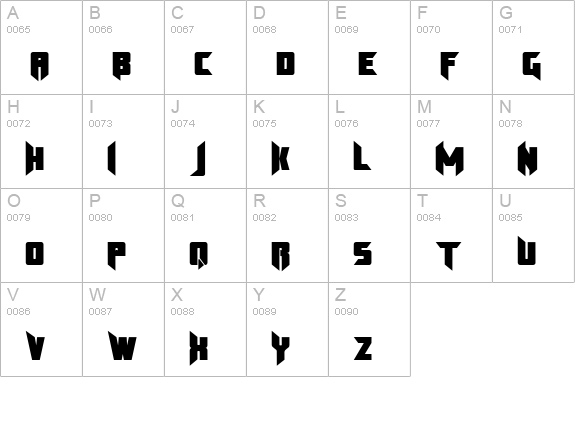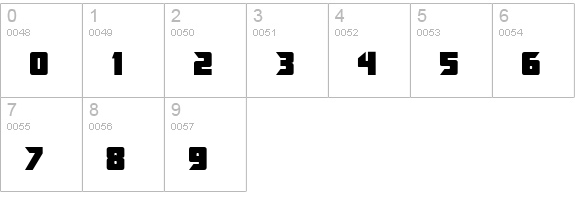
Klingon Regular Font Details
Klingon Regular is the standard, neutral variant in the Klingon typeface family \xE2\x80\x94 well suited to general body text, paragraphs, and standard typographic work.
Klingon Regular font is a bold and powerful typeface that embodies the strength and ferocity of the Klingon warriors. With its sharp edges and distinctive letterforms, this font captures the essence of the Klingon language, making it perfect for any fan of the Star Trek franchise or anyone seeking to add a touch of otherworldly intensity to their designs. The Klingon Regular font is a versatile typeface that can be used for a wide range of applications. Whether you're designing a poster, creating a logo, or adding text to a video game, this font will ensure that your message is delivered with impact. One of the best things about the Klingon Regular font is that it is freely available to download at FontsMarket.com. This means that you can easily access this unique and powerful font without having to spend a single credit. It's a font that truly belongs to the fans, allowing them to unleash their inner Klingon and boldly express themselves in their designs. So, if you're ready to embrace the warrior spirit and make a statement with your typography, look no further than the Klingon Regular font. Download it for free at FontsMarket.com and let your designs roar with power and passion.